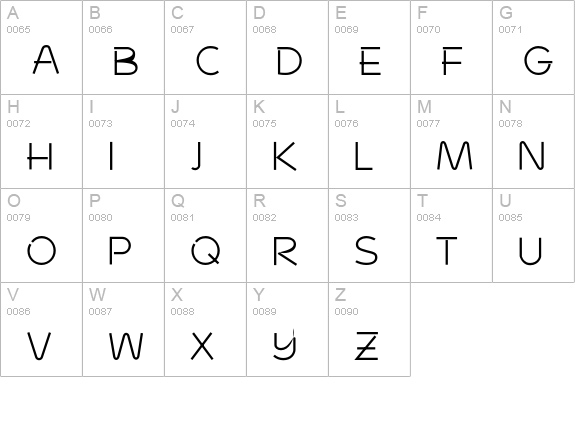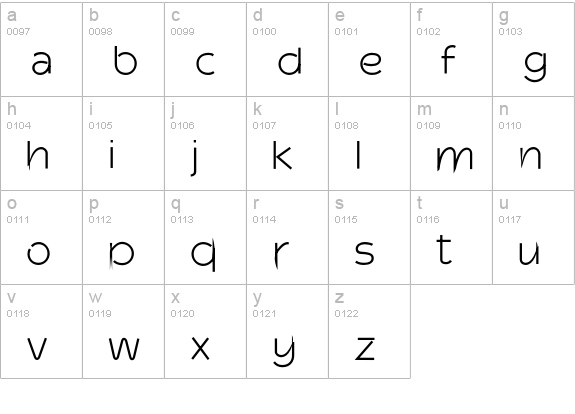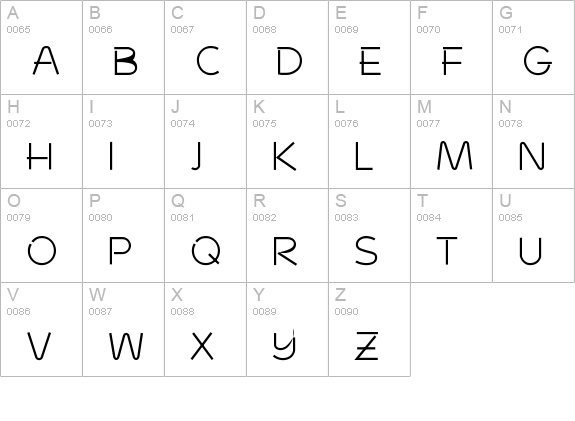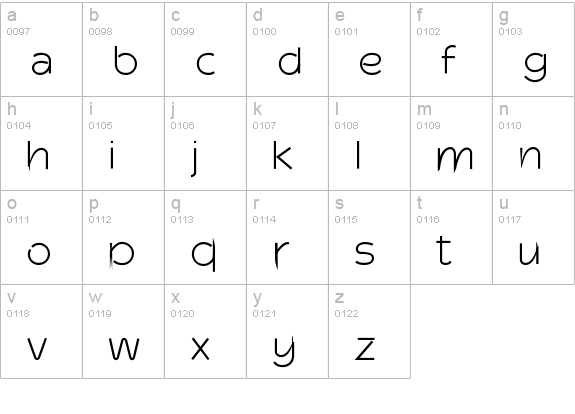
Moulinrouge Font Details
Introducing Moulinrouge - a whimsical and elegant font that captures the essence of vintage Parisian charm. With its playful curves and stylish flourishes, Moulinrouge is perfect for adding a touch of sophistication to your designs. This versatile font is ideal for invitations, branding, posters, and more. The best part? Moulinrouge is available for free download at FontsMarket.com! Whether you're a designer looking to add a unique flair to your projects or a creative looking for a new font to play with, Moulinrouge is sure to inspire and delight. Download it today and let your creativity shine with this exquisite typeface.